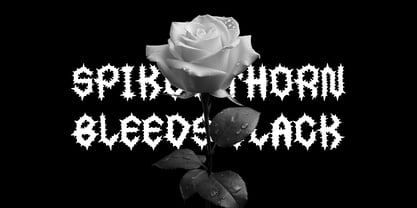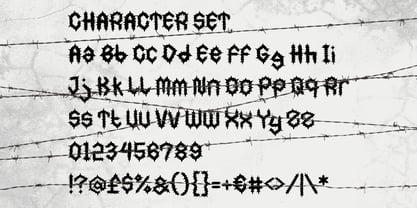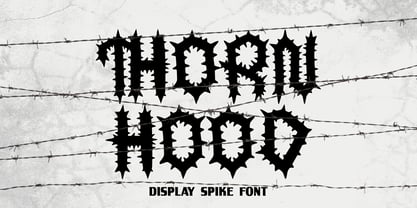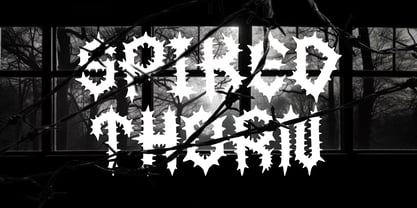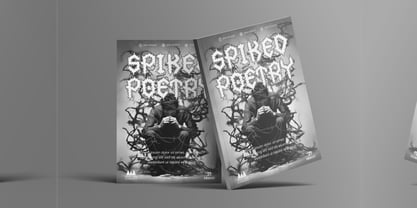
Thornhood
von Shanaf
Die Schriftfamilie Thornhood wurde von Yesie Erma Yunita entworfen und von Shanaf veröffentlicht. Thornhood enthält 1 Stile. Mehr über diese Familie
Thornhood Spike Font is a striking fusion of gothic brutality and spiked aesthetics, crafted for bold, unapologetic design statements. Each letterform is constructed with sharp, thorn like extensions—reminiscent of barbed wire and dark botanical motifs. The high contrast structure and consistent vertical stress give the font a blackletter inspired foundation, while the irregular edges break the traditional mold. Its unique silhouette commands attention, making it ideal for edgy branding, dark themed merchandise, underground music promos, and expressive title displays.
This font thrives in high impact layouts—on posters, book covers, album art, or packaging design—especially within horror, thriller, or punk subcultures. The letter spacing is carefully balanced to keep legibility intact while maximizing visual aggression. Whether it's for streetwear branding or spiked poetry zines, Thornhood injects raw emotional power into every composition. Designers seeking a font with attitude and rebellion will find Thornhood both functional and unforgettable.
Designer: Yesie Erma Yunita
Foundry: Shanaf